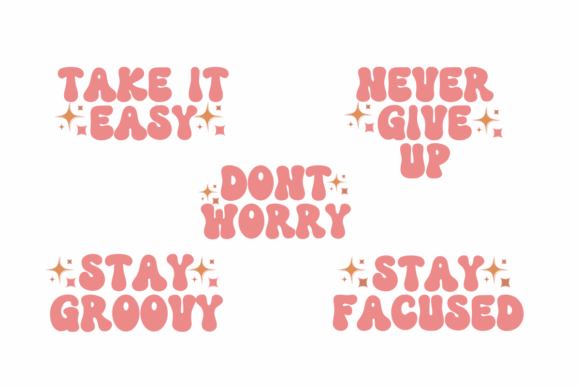
Retro Stacked Font
Retro Stacked is a fun and retro font, perfect for designs that need a cheerful, cheerful accent. Retro Stacked is perfect for book covers, posters, packaging, merchandise, logotypes, and more!